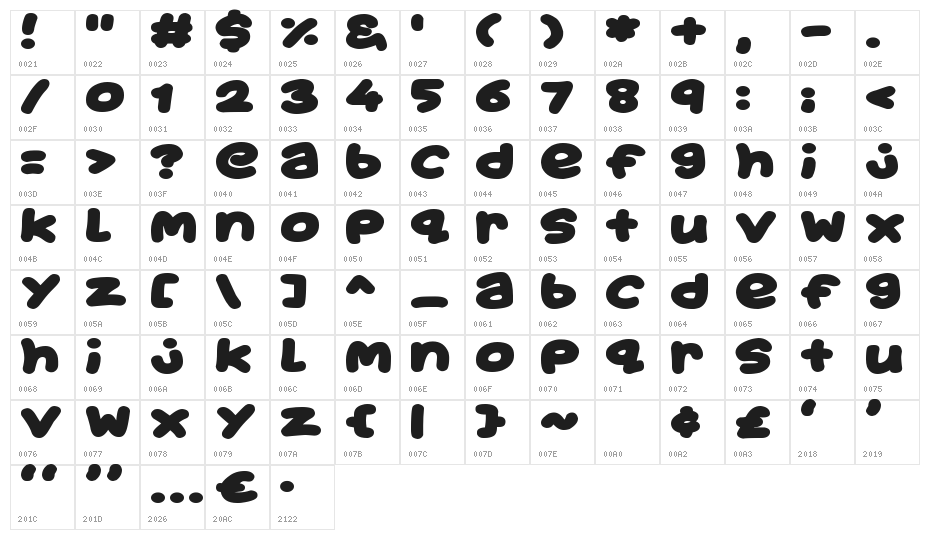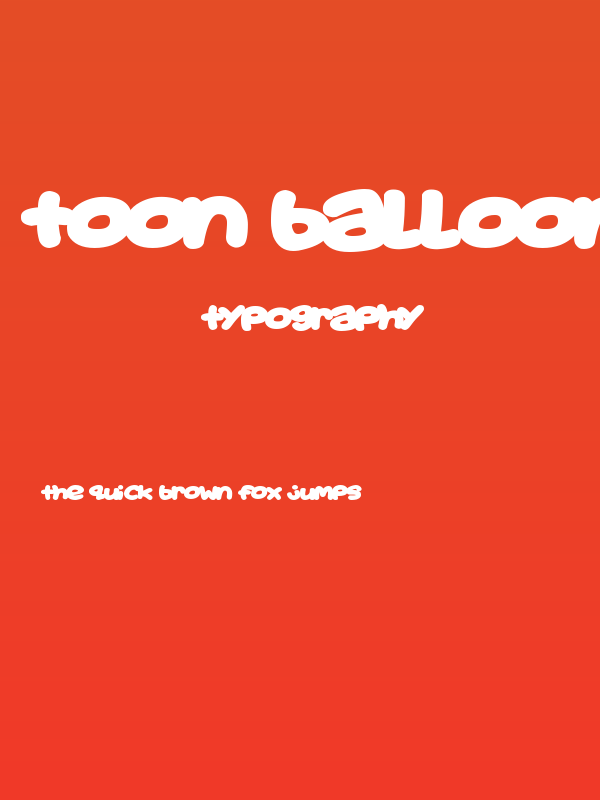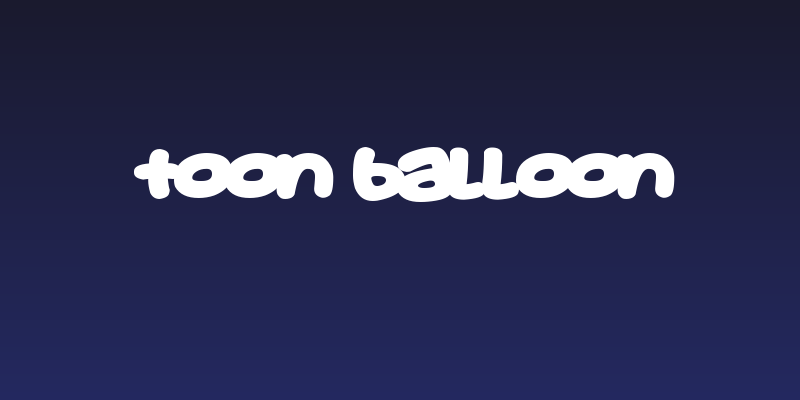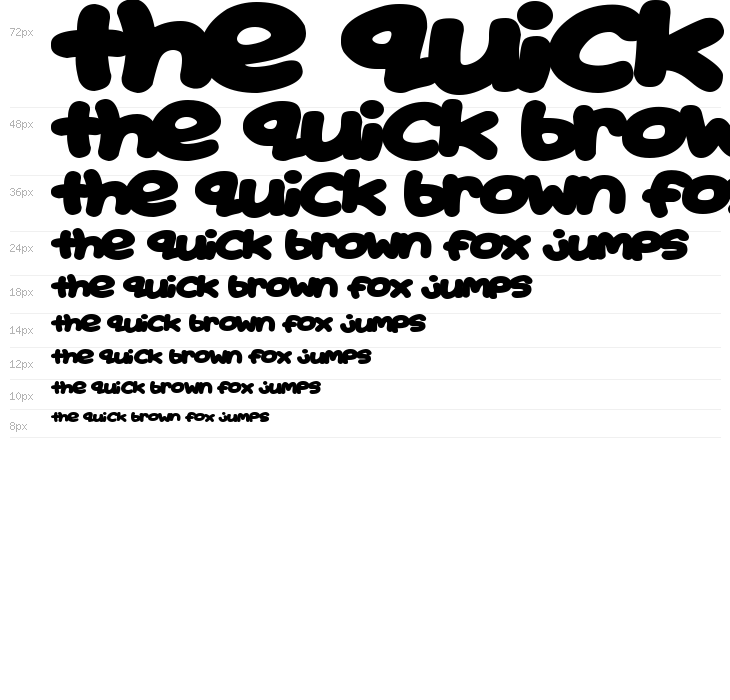
Toon Balloon Font
| Progetti proposti | Ideal for children's books, comic strips, playful branding, party invitations, and any project needing a fun, whimsical touch. |